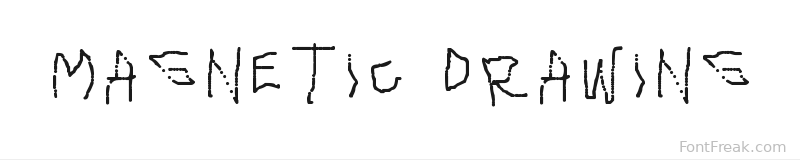
Magnetic Drawing
Magnetic Drawing font, crafted by GGBot, is a captivating display typeface that stands out with its unique visual aesthetic. This font showcases a playful, hand-drawn style that mimics the effect of a magnetic drawing board, complete with irregular stroke weights and whimsical, uneven lines. The varying thicknesses of the characters add an engaging dynamic, while the slightly spaced letters create a sense of movement and fluidity. The font's decorative elements, such as the playful curves and jagged edges, contribute to its artistic appeal, making it perfect for a range of creative applications.
The Magnetic Drawing font is particularly suitable for projects that require a touch of fun and creativity. It shines in children's book covers, where its playful character can attract young readers. This font is also an excellent choice for artistic event posters, providing an eye-catching headline that grabs attention. Additionally, it works well for social media graphics, particularly for content aimed at a younger audience, where a casual and approachable vibe is essential. Small business owners looking to create a unique brand identity can also leverage this typeface for logos and promotional materials, ensuring their message stands out.
What truly sets the Magnetic Drawing font apart is its ability to evoke a sense of nostalgia and playfulness while maintaining professionalism. This charming typeface not only enhances visual communication but also invites engagement, making it an essential addition for anyone looking to leave a lasting impression. Don’t miss the chance to explore its potential with the Magnetic Drawing font free download.